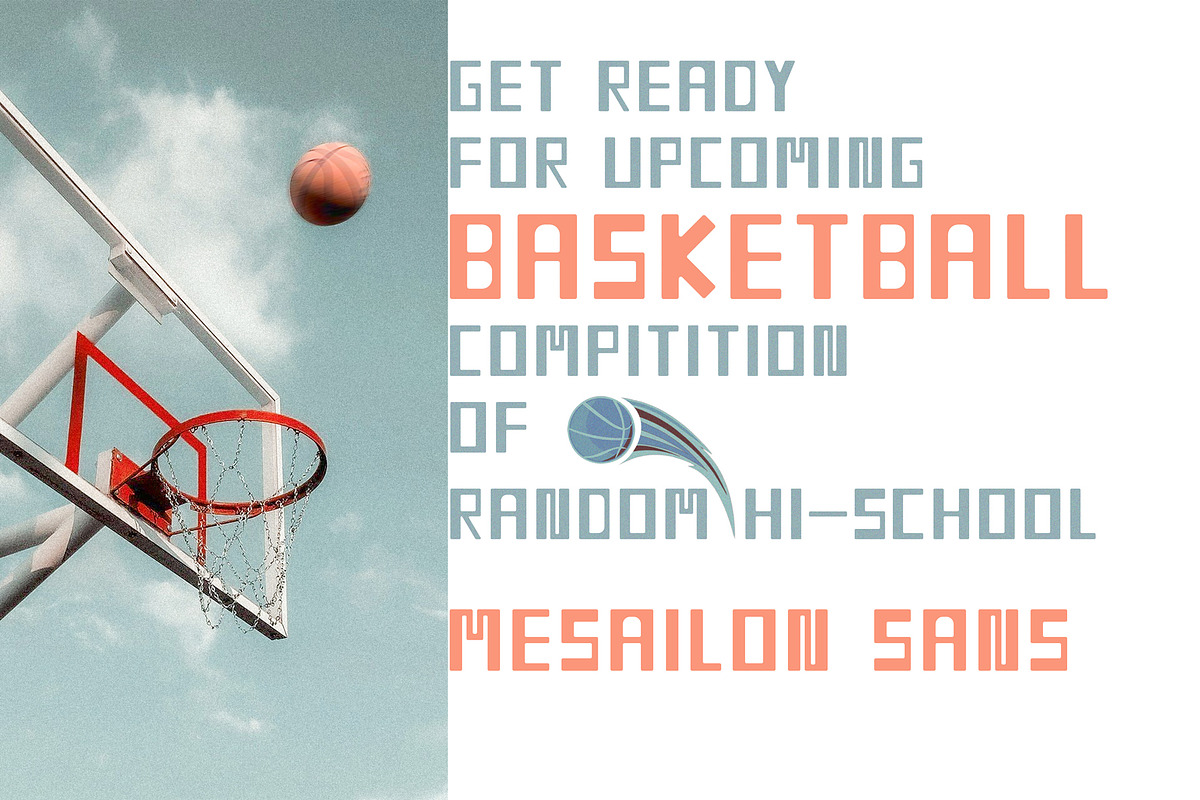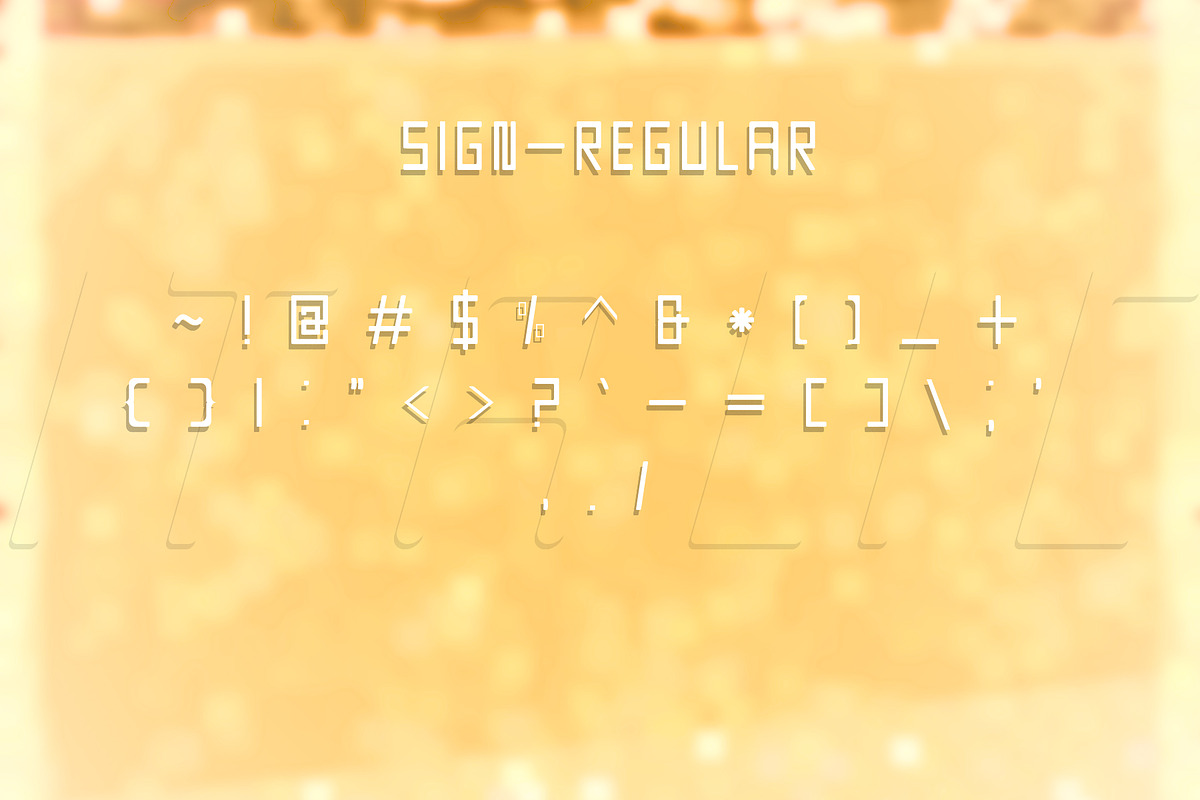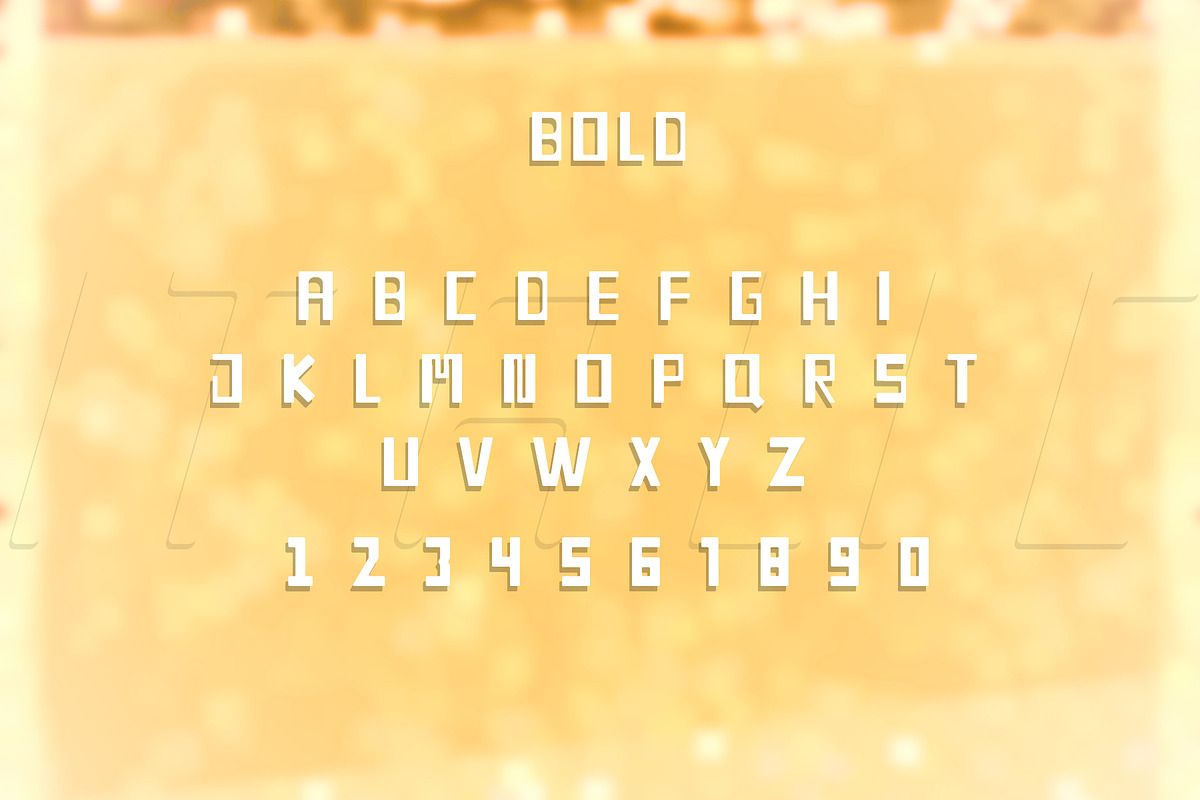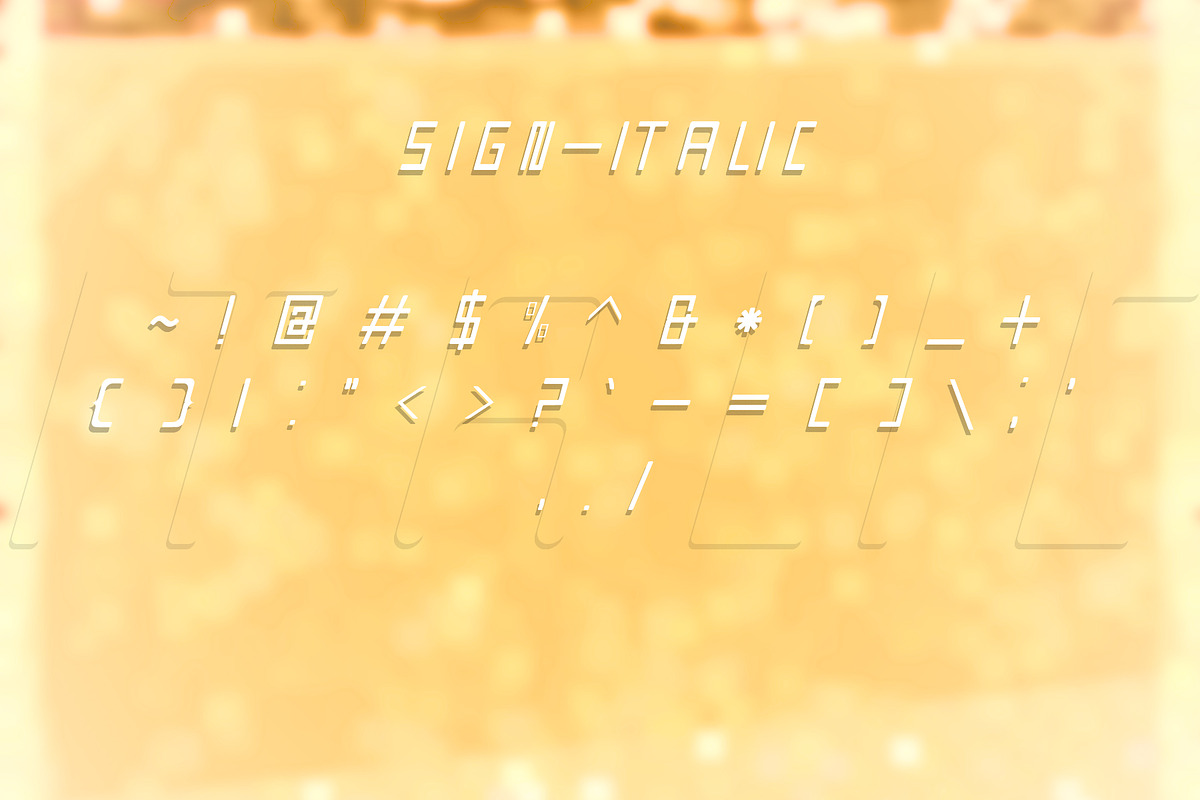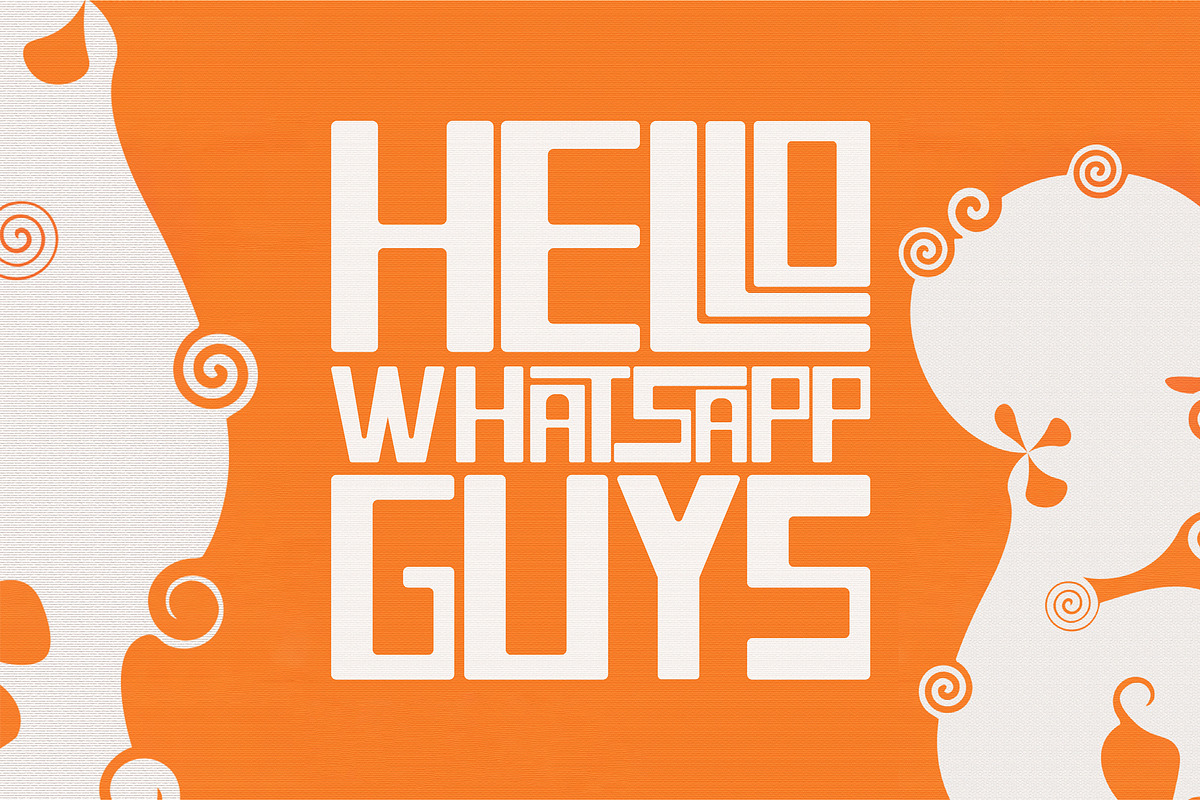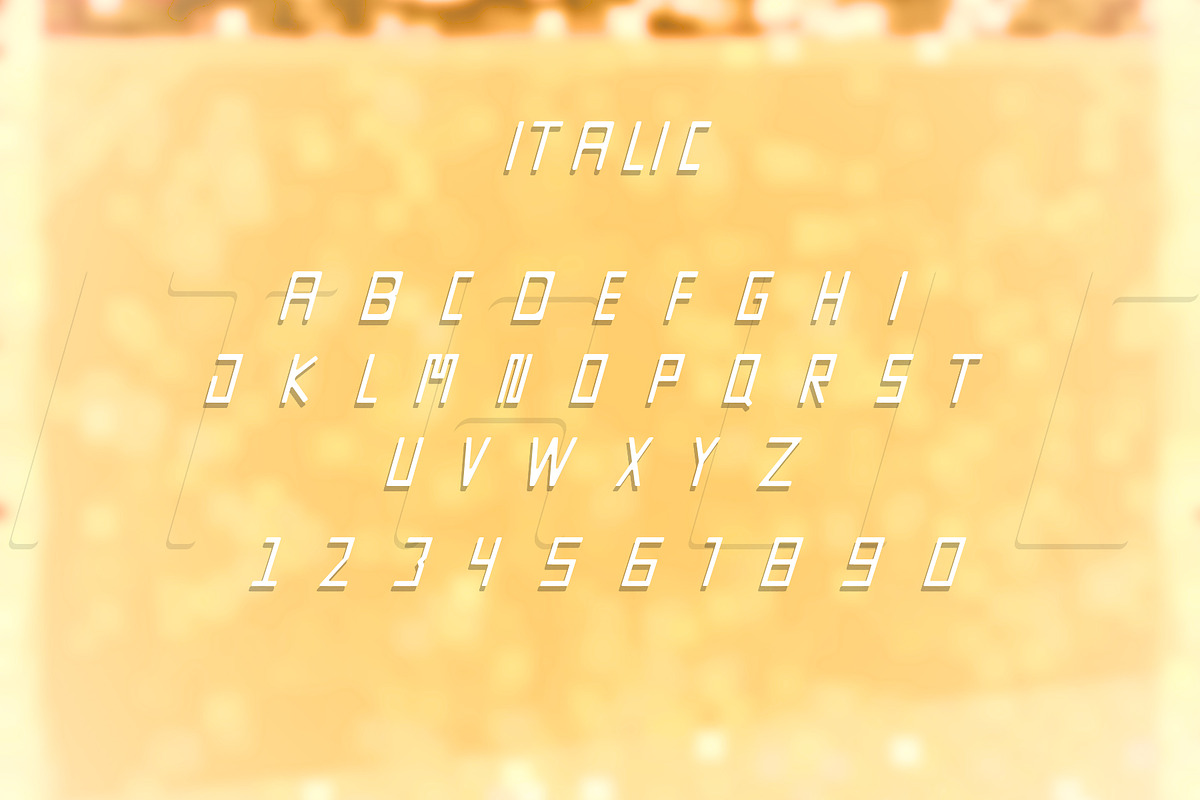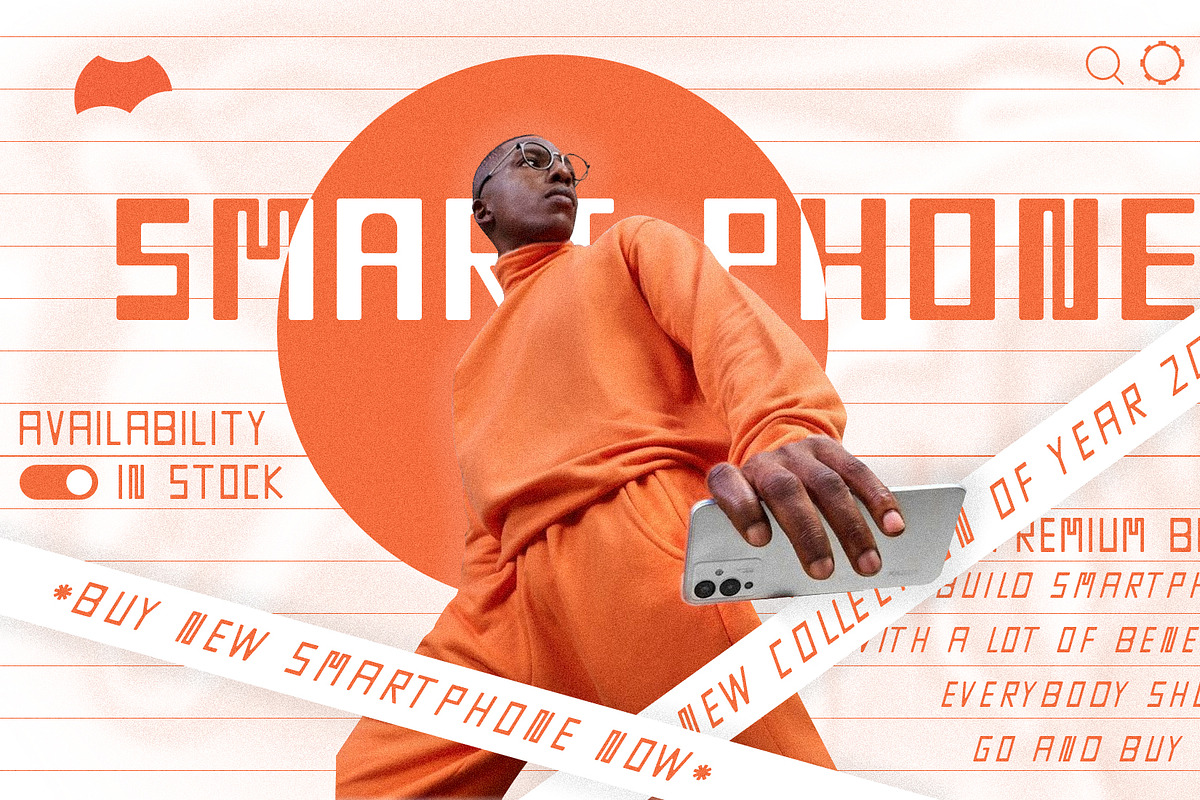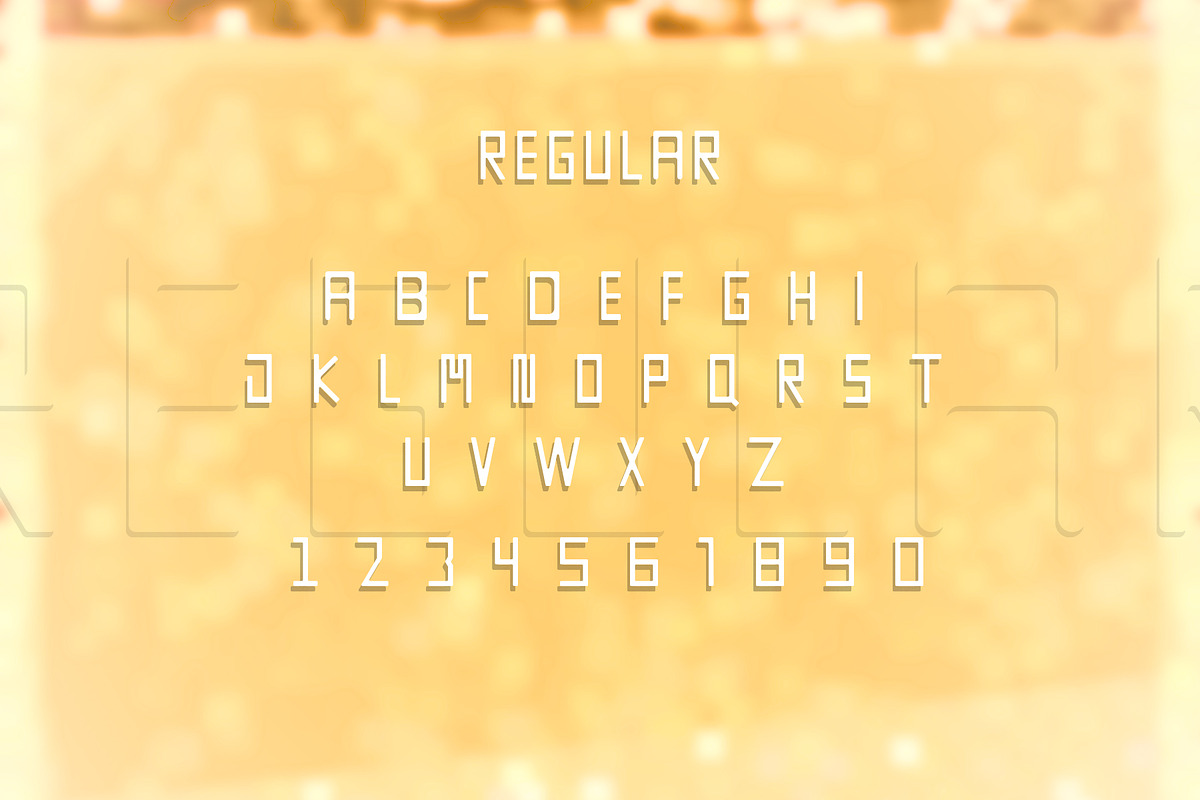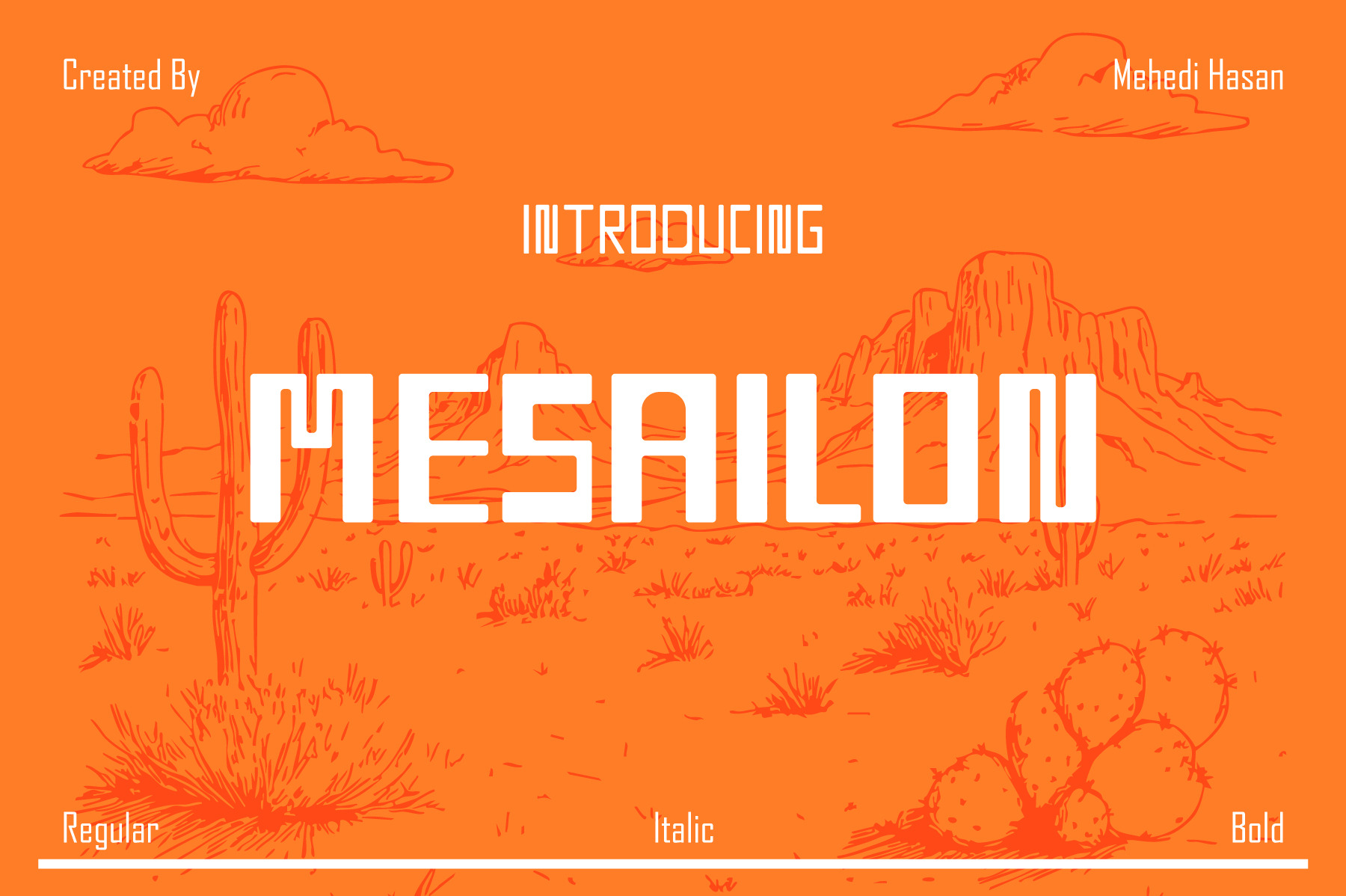
Masailon – Display Font Family.
Masailon – Futuristic Display Font Family (Regular, Italic, Bold)
Introducing Masailon, a bold and futuristic all-caps display font family designed to make a powerful statement. Inspired by modular architecture and sci-fi landscapes, Masailon brings a geometric, monospaced aesthetic perfect for tech, digital, gaming, or industrial-themed designs.
This versatile typeface comes in three distinctive styles — Regular, Italic, and Bold — offering flexibility for logos, posters, branding, web headers, product packaging, and more.
🔤 Features: All Capital Letters – Strong, clean uppercase characters for impactful headlines Numbers & Punctuation – Fully equipped for professional typography needs Three Styles – Regular, Italic, and Bold for creative contrast and hierarchy Modern & Minimal – Perfect for futuristic themes, sci-fi graphics, and sleek branding Masailon is built for designers who want to push boundaries while maintaining clarity and precision.